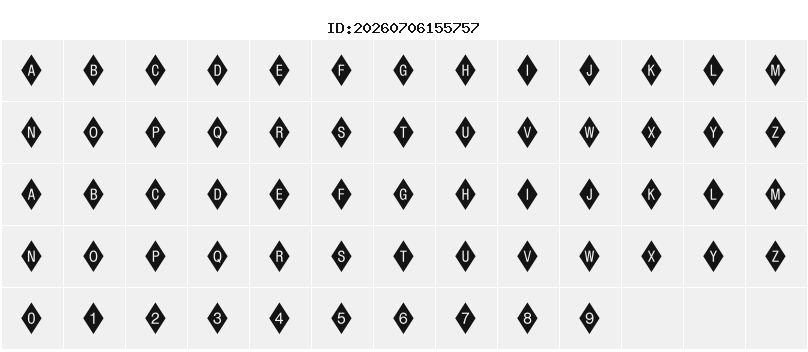
Diamond Negative Std Preview
• Font Name: Diamond Negative Std
• Full Font Name: DiamondNegativeStd
• PostScript Name: DiamondNegativeStd
• Character Count: 243
About Diamond Negative Std.otf
Diamond Negative Std.otf is a modern, elegant sans-serif font designed for ultimate readability and visual harmony. Perfect for branding, headlines, web design, and print materials.